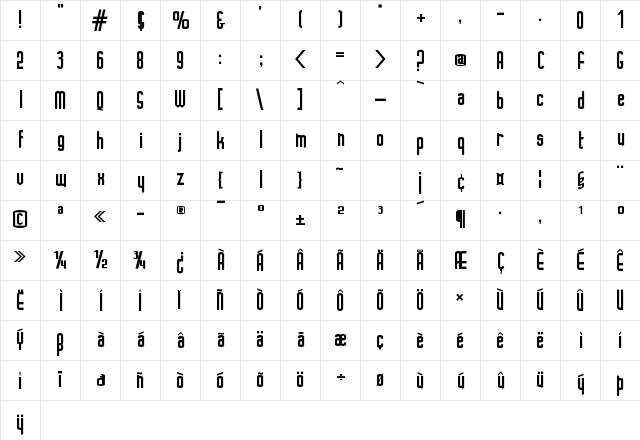
Ignoto Regular Free Font
Ignoto Regular
Design Context for Ignoto
Ignoto is a composed and adaptable typeface that performs quietly and consistently across a wide range of design contexts.